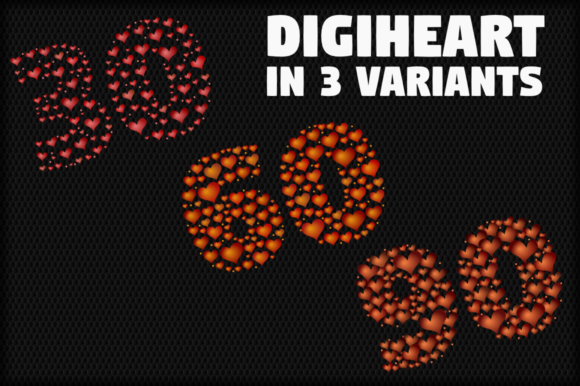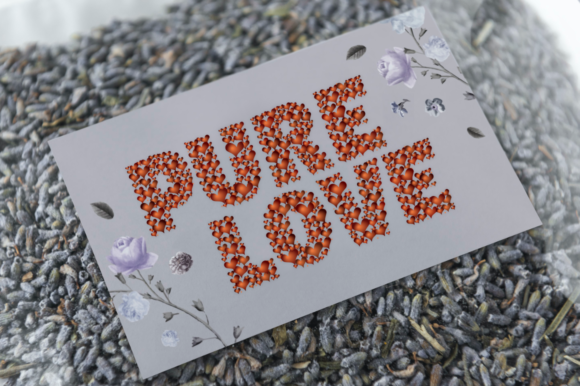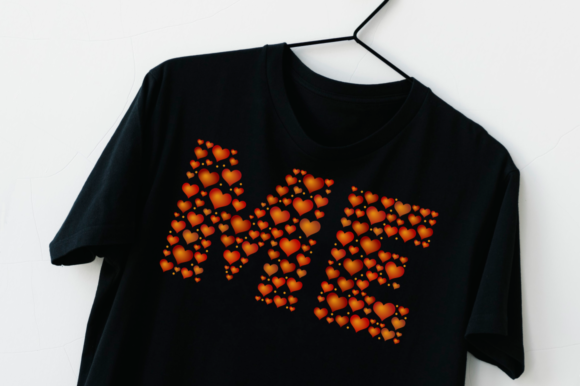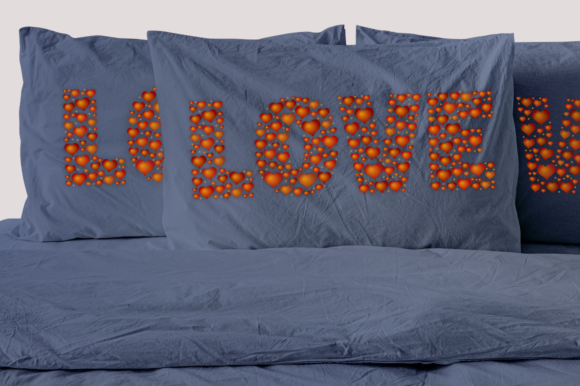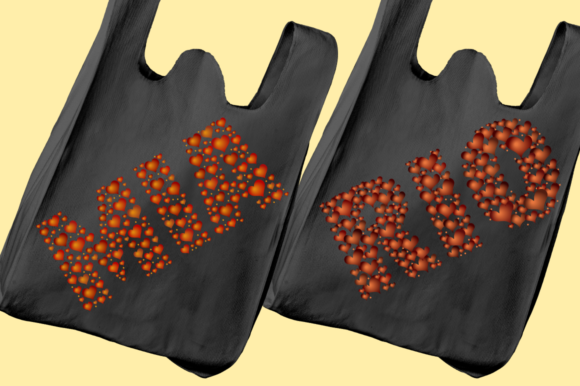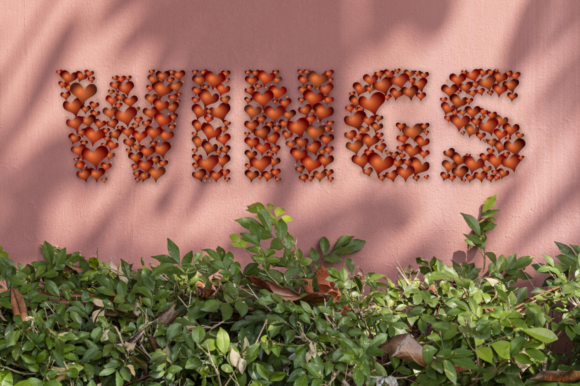
Introduction to Digiheart Font
Digiheart is an incredibly unique color font.
It comes in 3 styles which makes it incredibly versatile Take your projects to the next level with Digiheart.